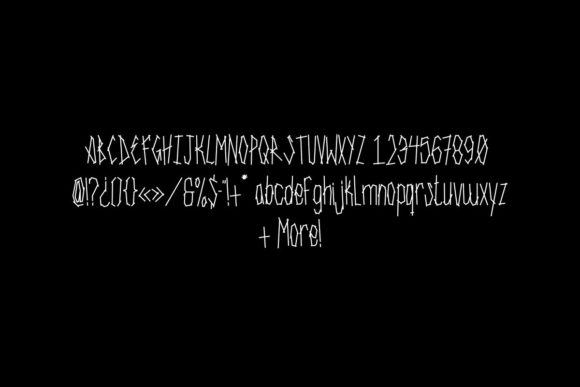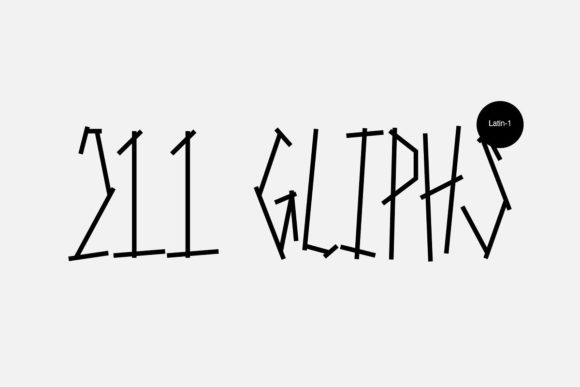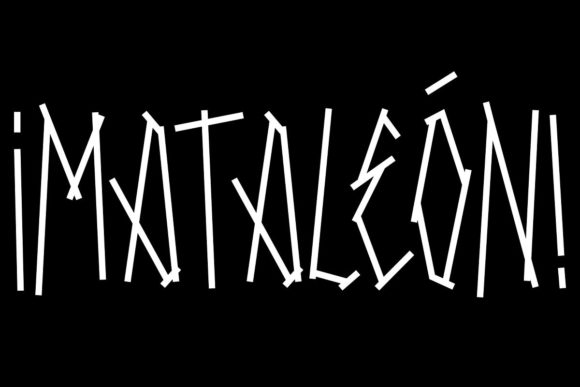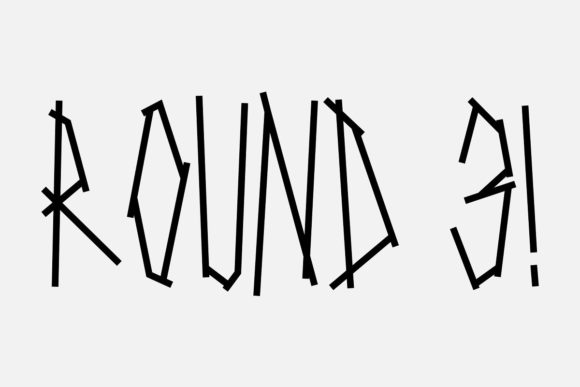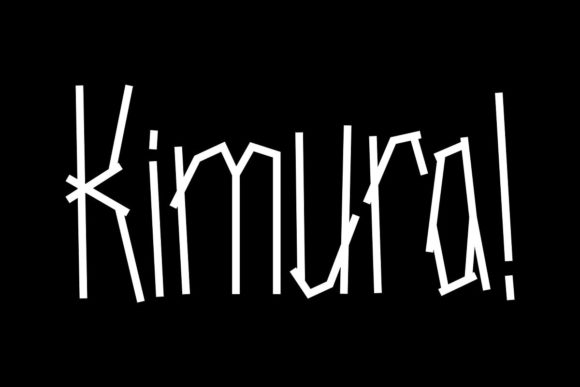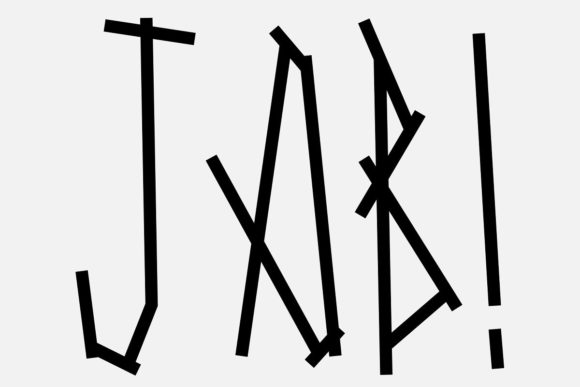
Fighter’s Tape Font: Unleash the Quirky and Unique Character in Your Designs
Are you tired of using the same old fonts in your designs? Do you want to add a touch of quirkiness and uniqueness to your projects? Look no further than Fighter’s Tape Font, a geometric and experimental display font inspired by the tape used on combat sports.
The Inspiration Behind Fighter’s Tape Font
Fighter’s Tape Font is a one-of-a-kind font that draws inspiration from the tape used in combat sports, such as boxing and mixed martial arts. The font’s creator was fascinated by the way the tape wraps around the fighter’s hands, creating a unique and rugged texture. This texture was then translated into a digital font that reads as quirky, unique, and even a little creepy.
What Makes Fighter’s Tape Font So Special?
Fighter’s Tape Font is not your average font. Its geometric and experimental design makes it stand out from the crowd, adding a touch of edginess to any design project. The font’s unique character is perfect for designers and crafters who want to create something that sets them apart from others.
Key Features of Fighter’s Tape Font
- Geometric and Experimental Design: Fighter’s Tape Font features a geometric and experimental design that gives it a unique and quirky feel.
- Inspired by Combat Sports Tape: The font’s inspiration comes from the tape used in combat sports, making it a one-of-a-kind font.
- Quirky and Unique Character: Fighter’s Tape Font reads as quirky, unique, and even a little creepy, making it perfect for designers who want to add some character to their designs.
- Perfect for Display Text: Fighter’s Tape Font is a display font, making it perfect for headlines, titles, and other display text.
How to Use Fighter’s Tape Font in Your Designs
Fighter’s Tape Font is a versatile font that can be used in a variety of design projects, including:
- Posters and Flyers: Use Fighter’s Tape Font to create eye-catching posters and flyers that grab attention.
- Social Media Graphics: Add a touch of quirkiness to your social media graphics with Fighter’s Tape Font.
- Logos and Branding: Use Fighter’s Tape Font to create a unique and memorable logo for your brand.
- Crafting and DIY Projects: Fighter’s Tape Font is perfect for crafters and DIY enthusiasts who want to add a personal touch to their projects.
Tips and Tricks for Getting the Most Out of Fighter’s Tape Font
Here are some tips and tricks for getting the most out of Fighter’s Tape Font:
- Experiment with Different Colors: Try out different colors and textures to really make Fighter’s Tape Font pop.
- Use it as a Display Font: Fighter’s Tape Font is a display font, so use it to make a statement in your designs.
- Combine it with Other Fonts: Try combining Fighter’s Tape Font with other fonts to create a unique and interesting contrast.
| Font Name | Fighter’s Tape Font |
Fighter’s Tape Font is a unique and quirky font that can add tons of interesting character to your designs. Its geometric and experimental design makes it perfect for designers and crafters who want to create something that sets them apart from others. With its versatility and range of uses, Fighter’s Tape Font is a must-have font for any designer or crafter looking to add a touch of quirkiness to their projects.